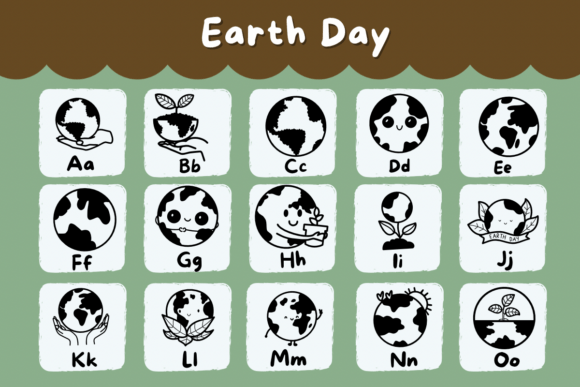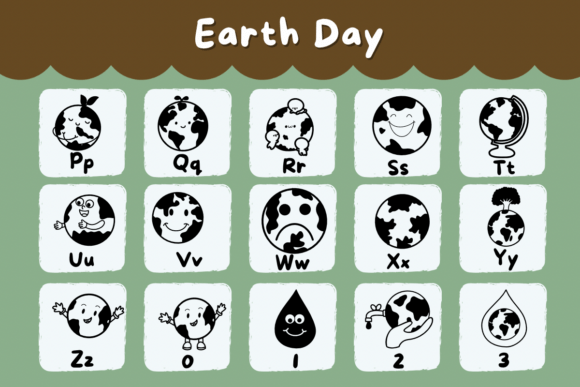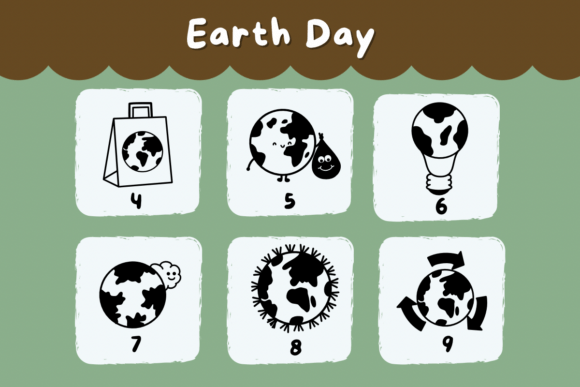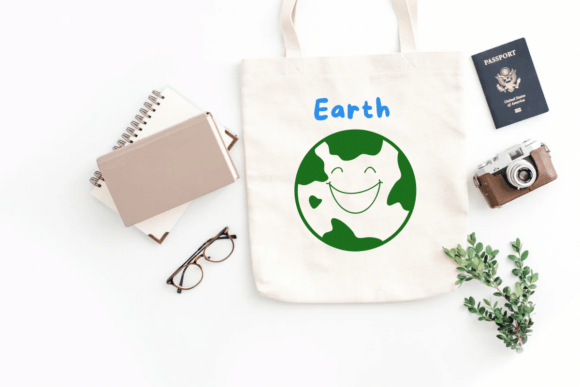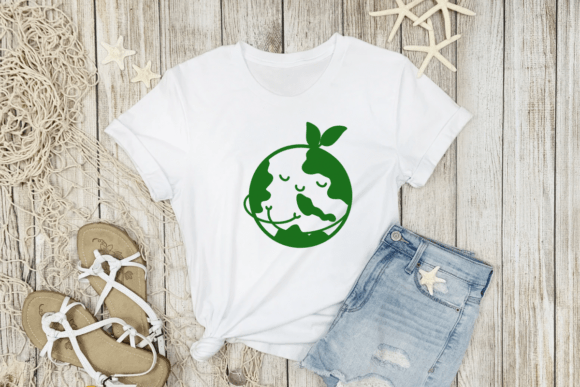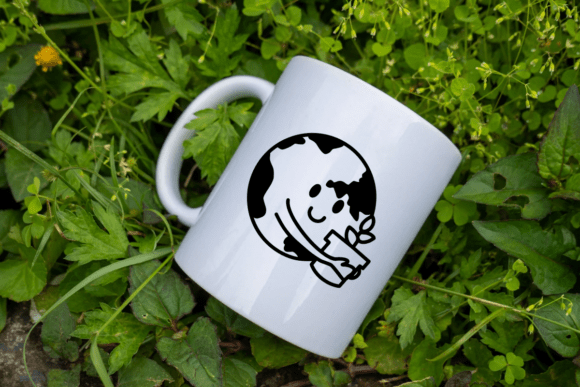
Celebrate Earth Day with the Charming Earth Day Dingbats Font
Earth Day is just around the corner, and what better way to join in the celebration than with a delightful font that embodies the spirit of sustainability and eco-friendliness? Introducing the Earth Day Dingbats Font, a charming collection of earth-themed doodles perfect for designers, crafters, and eco-warriors alike. This dingbat font is designed to bring sustainability to life in a fun and creative way, making it ideal for Earth Day posters, green campaigns, kids’ crafts, or eco-conscious branding.
What is the Earth Day Dingbats Font?
The Earth Day Dingbats Font is a unique and playful font that features a wide range of earth-themed doodles, including cute globes, happy plants, recycling icons, and playful characters. This font is perfect for adding a touch of whimsy and eco-friendliness to your designs, whether you’re creating posters, flyers, or social media graphics. With its charming and colorful illustrations, this font is sure to capture the hearts of designers, crafters, and eco-enthusiasts alike.
Key Features of the Earth Day Dingbats Font
- Earth-themed doodles: The font features a wide range of earth-themed doodles, including globes, plants, recycling icons, and playful characters.
- Cute and playful illustrations: The illustrations in this font are designed to be cute and playful, making it perfect for kids’ crafts, educational materials, and eco-friendly designs.
- Eco-friendly and sustainable: The font is designed to promote sustainability and eco-friendliness, making it perfect for green campaigns, eco-conscious branding, and Earth Day celebrations.
Uses for the Earth Day Dingbats Font
The Earth Day Dingbats Font is perfect for a wide range of design projects, including:
- Earth Day posters: Create eye-catching posters to celebrate Earth Day and promote sustainability.
- Green campaigns: Use the font to create promotional materials for your green campaign, including flyers, brochures, and social media graphics.
- Kids’ crafts: The font is perfect for kids’ crafts, including making eco-friendly cards, posters, and other creative projects.
- Eco-conscious branding: Use the font to create eco-friendly branding materials, including logos, business cards, and letterheads.
Why Choose the Earth Day Dingbats Font?
There are many reasons why you should choose the Earth Day Dingbats Font for your design projects. Here are a few:
- Unique and playful illustrations: The font features unique and playful illustrations that will set your designs apart from the rest.
- Eco-friendly and sustainable: The font is designed to promote sustainability and eco-friendliness, making it perfect for eco-conscious designers and crafters.
- Supports Earth Day celebrations: By using the font, you’ll be supporting Earth Day celebrations and promoting sustainability and eco-friendliness.
The Earth Day Dingbats Font is a charming and playful font that’s perfect for designers, crafters, and eco-warriors alike. With its earth-themed doodles and eco-friendly illustrations, this font is sure to bring sustainability to life in a fun and creative way. Whether you’re creating Earth Day posters, green campaigns, kids’ crafts, or eco-conscious branding materials, this font is the perfect choice. So why not give it a try and join in the Earth Day celebration?